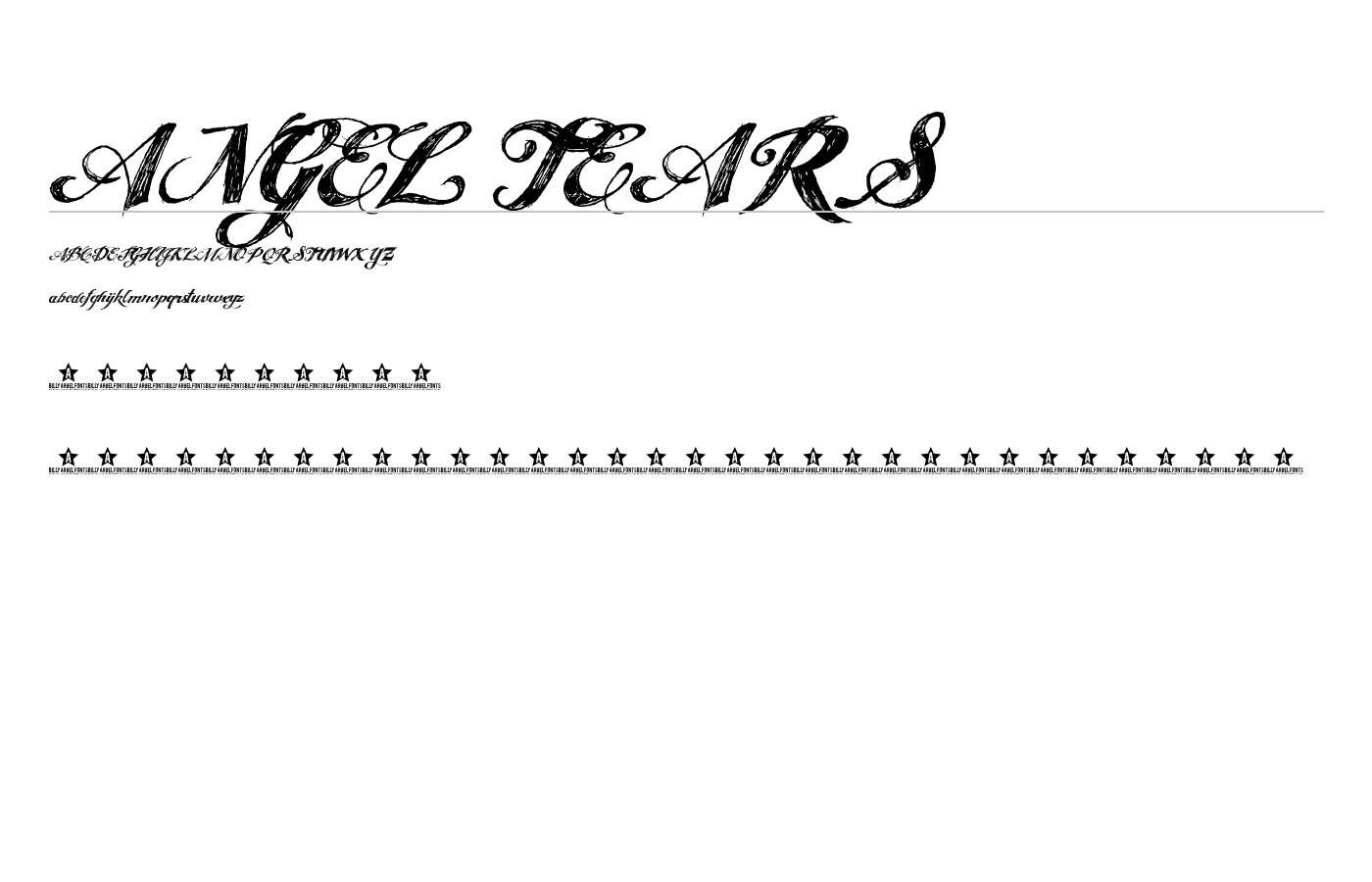
Angel Tears is a decorative script font with an ornate, hand-drawn feel that combines elegant swirls and a distressed texture, giving it a dramatic yet vintage personality. Its tightly connected letterforms and elaborate flourishes make it ideal for artistic logos, invitations, or designs that require a romantic and expressive touch. Best suited for display use rather than body text, it adds a unique, emotional flair to branding and creative projects.
ANGEL TEARS Font
About ANGEL TEARS Font